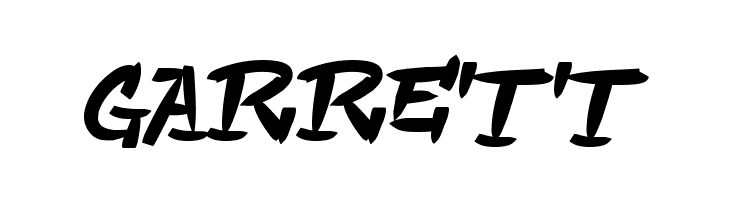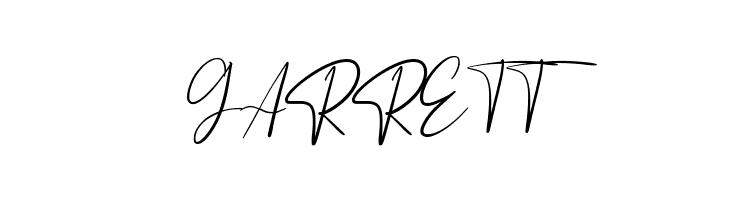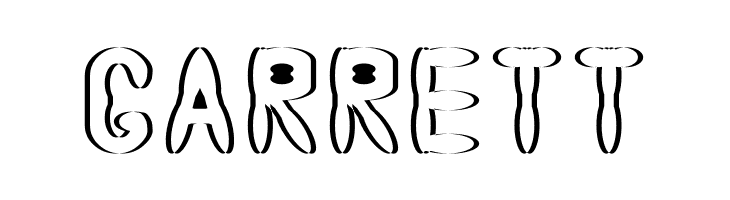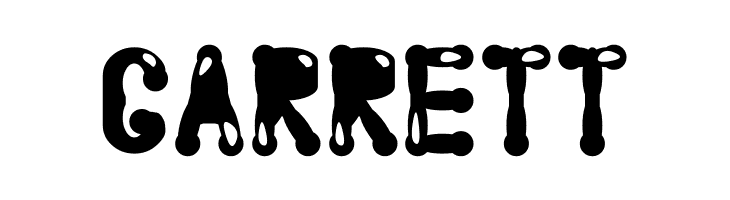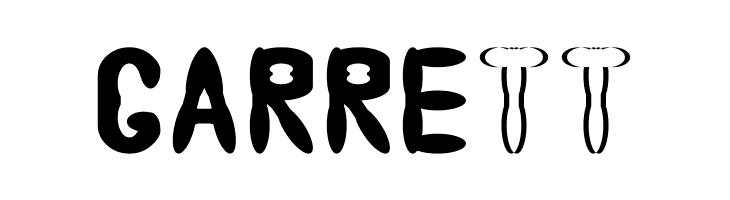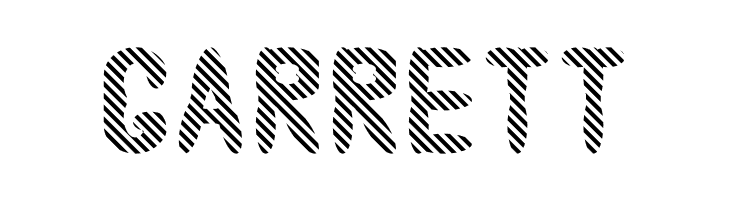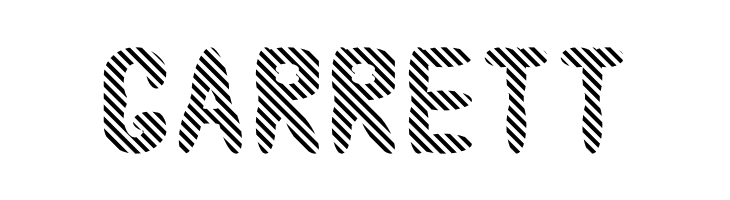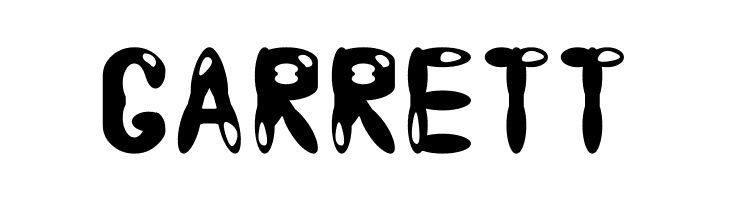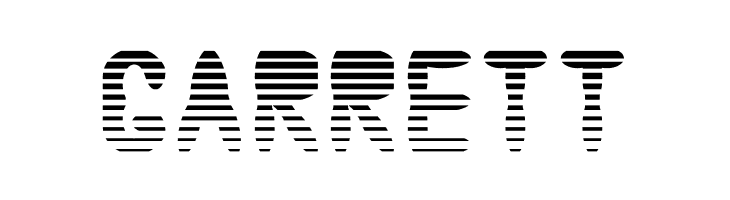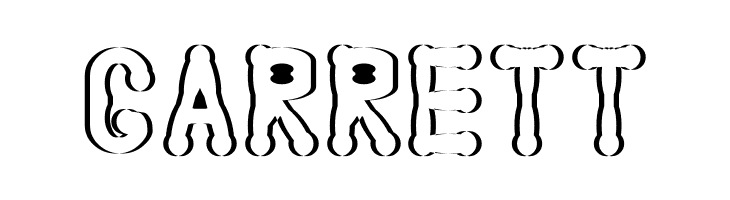
A bold, blackletter-inspired font with sharp, angular lines and intricate detailing.
A bold, geometric font with a digital, pixelated style.
A bold, dynamic font with sharp, angular strokes and a sense of energy.
A bold, dynamic font with sharp, angular edges and a brush-like appearance.
A fluid, cursive font with an elegant and sophisticated style.
A bold, playful font with rounded, bubbly characters.
A bold, playful font with thick, rounded strokes and a whimsical style.
A bold, cracked texture font with a fragmented, distressed appearance.
A bold, striped font with a modern, industrial aesthetic.
A bold, decorative font with diagonal striped patterns for a modern, edgy look.
A bold, playful font with organic, rounded characters.
A bold, playful font with rounded, blob-like characters and a retro vibe.
A bold, playful font with high contrast and organic shapes, ideal for creative projects.
A bold, playful font with organic, blob-like shapes and dynamic character design.
A bold, playful font with organic, blob-like shapes and a fluid, dynamic style.
A bold, playful font with an organic, liquid-like design.
A bold, modern font with a unique striped pattern across each character.
A modern, striped font with a digital and futuristic style.
A playful, hollow, bubble-like font with bold, rounded characters.
A bold, playful font with wavy outlines and a retro-modern vibe.
A bold, distressed decorative font with a rugged, stencil-like appearance.
A decorative, outline-style font with a playful, artistic flair.
A decorative, hand-drawn style font with bold outlines and textured interiors.
A bold, chaotic font with irregular, hand-drawn shapes and varying thicknesses.
A bold, decorative font with diagonal stripes for a dynamic look.
A modern, striped font with a digital, futuristic design.
A bold, striped font with a futuristic and digital aesthetic.
A bold, outlined font with a playful, hollow design ideal for creative projects.